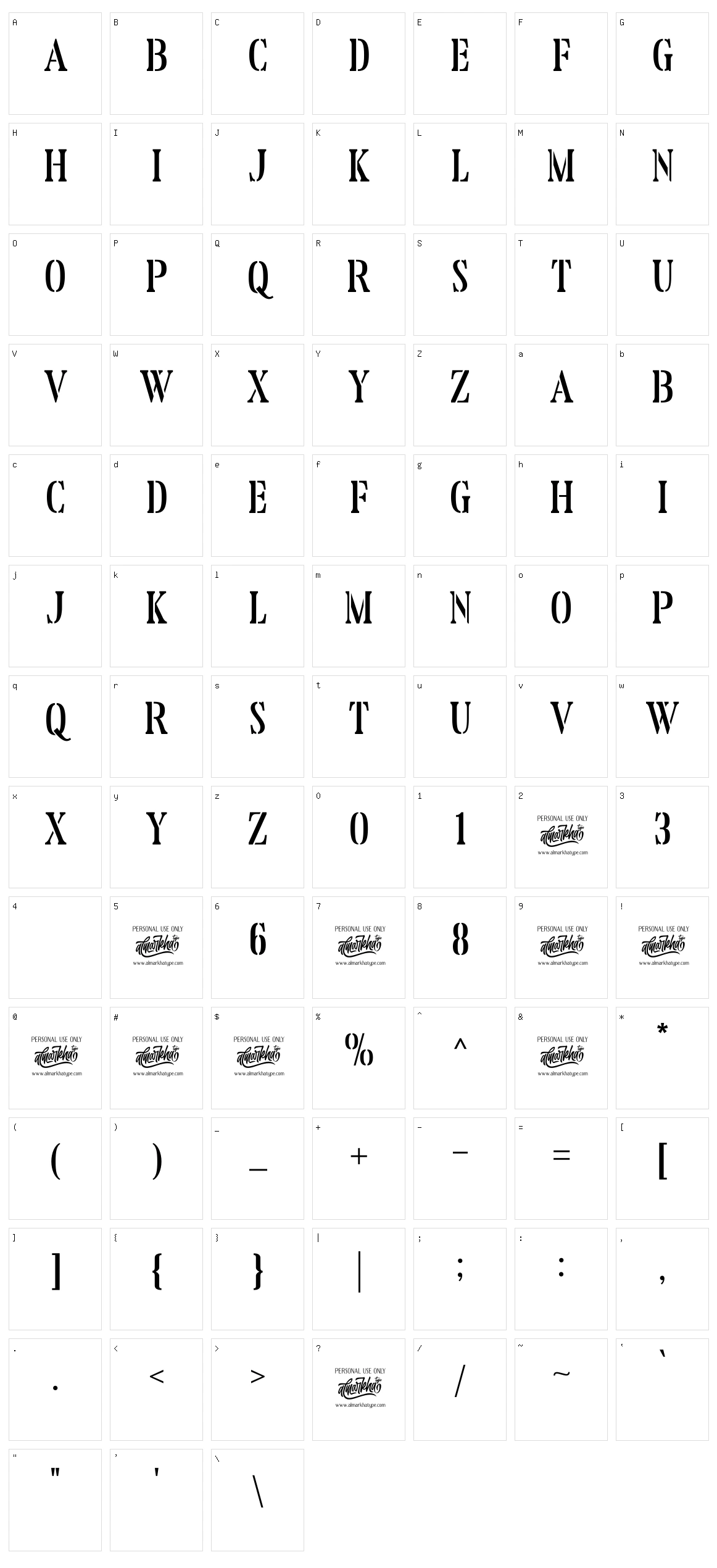
The free font Reloaded is carefully designed by Almarkhatype, showcasing a thoughtful balance of creativity and usability and falls under the Stencil font style. When you download the ZIP file, it contains only 794.52 KB of font files, making it lightweight and quick to download. Please review the license details below to understand permitted usage and distribution rights. If license information is not available, we recommend using this font for personal projects only or contacting the author directly for commercial usage permissions.